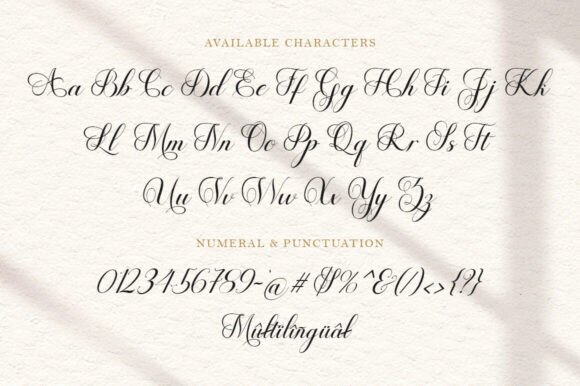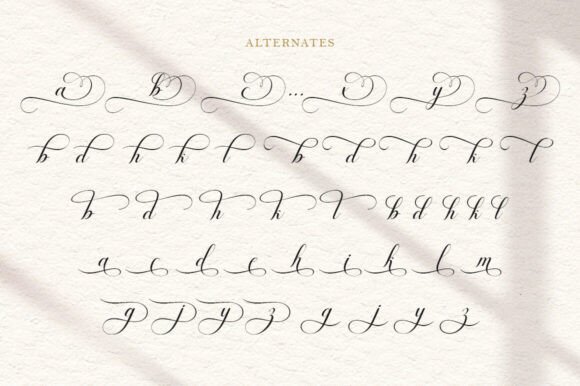
Enchanting Calligraphy Font
Enchanting Calligraphy font is an elegant script font that blends the charm of classic decorative copperplate calligraphy with a modern, refined twist.
Designed with meticulous detail, it exudes stylish sophistication, making it perfect for projects that require a touch of luxury and grace.
This typeface is smooth, clean, feminine, sensual, and effortlessly readable, enhanced by a variety of beautiful letter connections and stylistic alternates. It’s versatile and ideal for a wide range of formal and creative applications such as wedding invitations, branding, restaurant menus, logos, fashion, beauty packaging, greeting cards, stationery, book covers, magazines, and advertising materials.